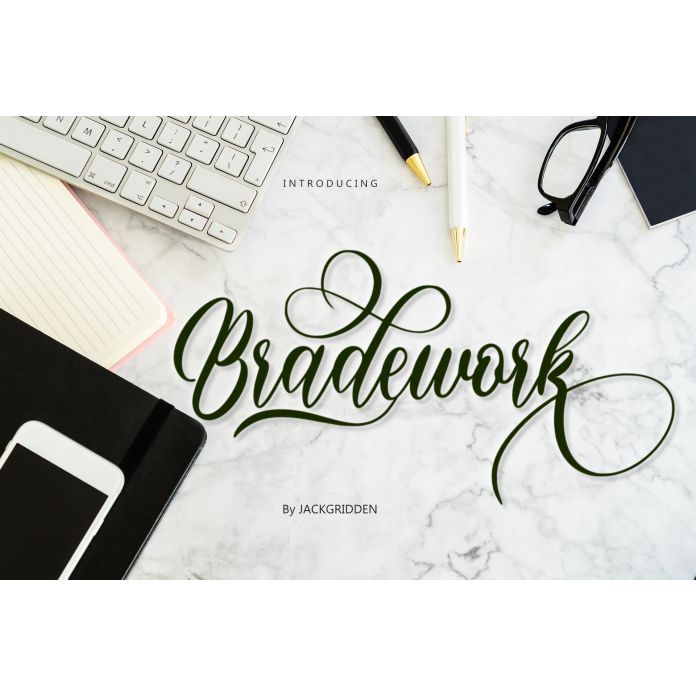
“Bradework” is a modern script font that seamlessly blends elegance with creativity. Its fluid strokes and unique letterforms make it perfect for both digital and print designs. Ideal for branding, invitations, and any project that calls for a touch of sophistication, “Bradework” adds a personal flair while maintaining readability. Elevate your designs with this versatile and stylish typeface!